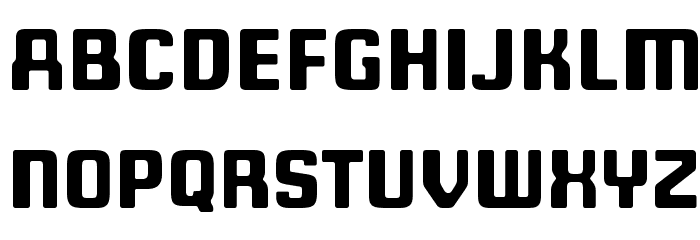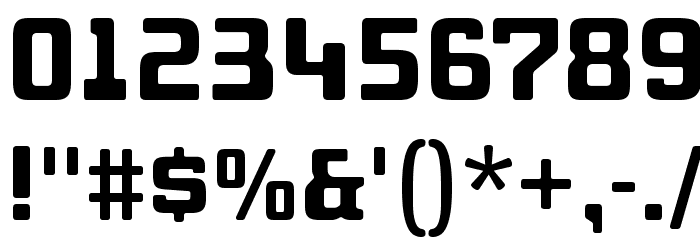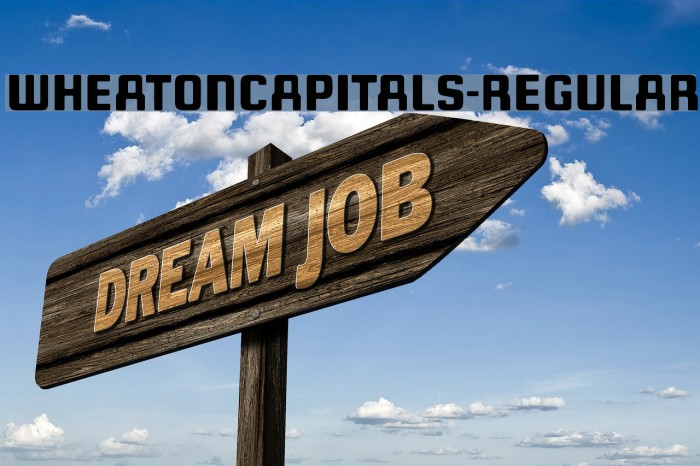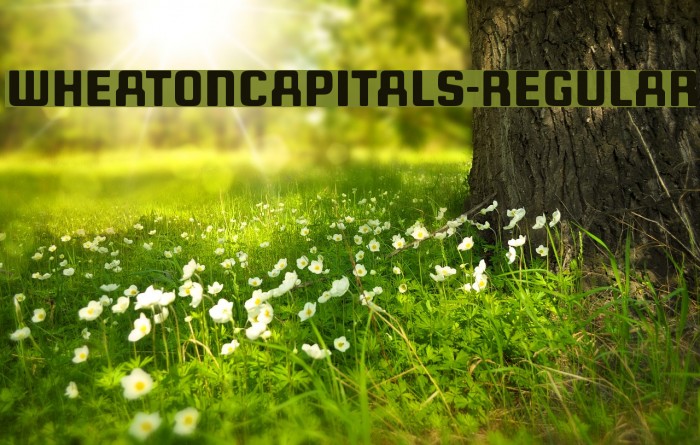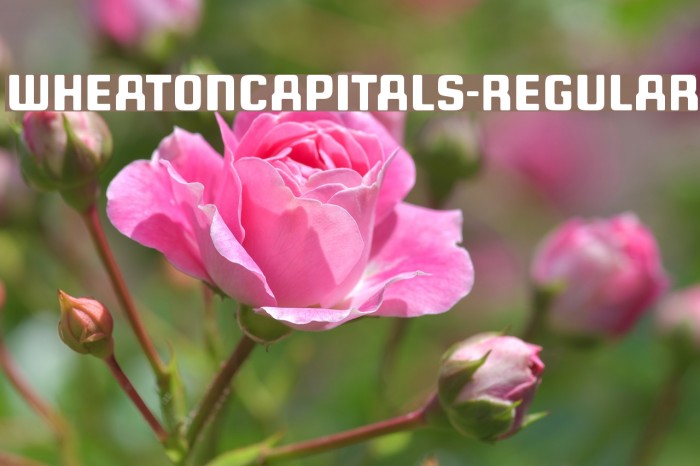
WheatonCapitals-Regular Font
This font features bold, rounded characters with a modern and robust appearance. The uppercase and lowercase letters maintain a consistent width, creating a uniform look. The numerals are clear and easily distinguishable, while the special characters complement the overall design with their bold and rounded forms. The font's style is both functional and decorative, making it suitable for a variety of uses where readability and impact are important.
A bold, rounded font with a modern and robust style.
- Proposed Projects: Ideal for branding, headlines, posters, and signage where a strong visual impact is needed.